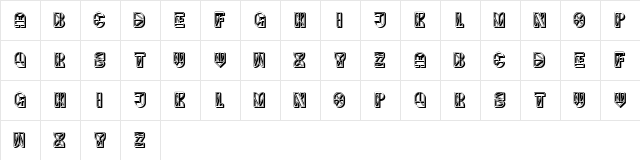
Labyrinth Regular
Design Context for Labyrinth Typeface
Labyrinth is a composed and adaptable typeface that performs quietly and consistently across a wide range of design contexts.